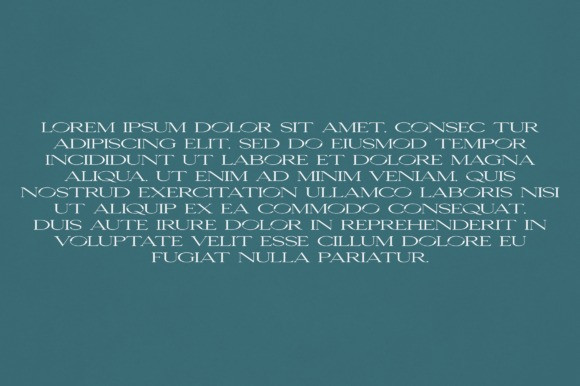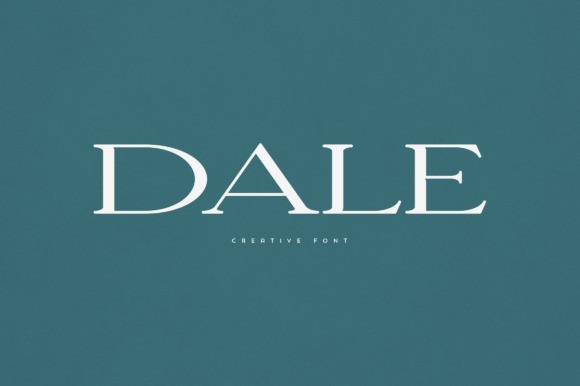
Dale Font
Dale Font is an elegant and versatile serif font that will make your typography truly unique! It will enchant every logo, branding, headline, or plain text!